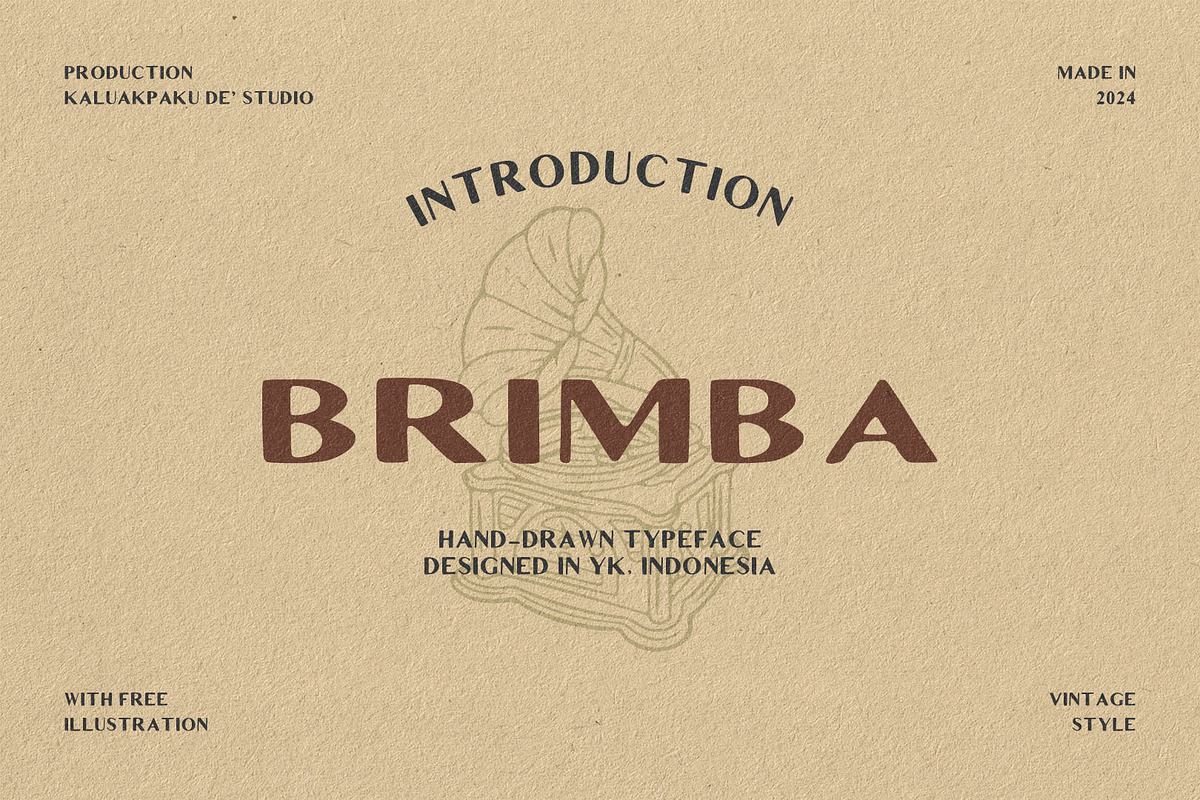
BRIMBA Typeface Free Download is a bold, modern display font that demands attention with its urban edge and confident curves. Designed for impactful visuals, this typeface is perfect for streetwear branding, posters, headlines, music covers, and anything that needs a fearless typographic voice.
BRIMBA Typeface Free Download combines sharp angles with smooth flow, creating a dynamic visual rhythm that feels both rebellious and refined. Whether you're crafting bold logo designs, merchandise, event flyers, or edgy social media content, this font adds attitude and style with every character.
It thrives in high-contrast layouts, vibrant colors, and bold compositions. Pair it with grunge textures, urban photography, or minimalist backdrops to let its personality shine.
Stand tall, speak loud, and design with confidence—BRIMBA brings the type of energy that turns heads and leaves an impression.